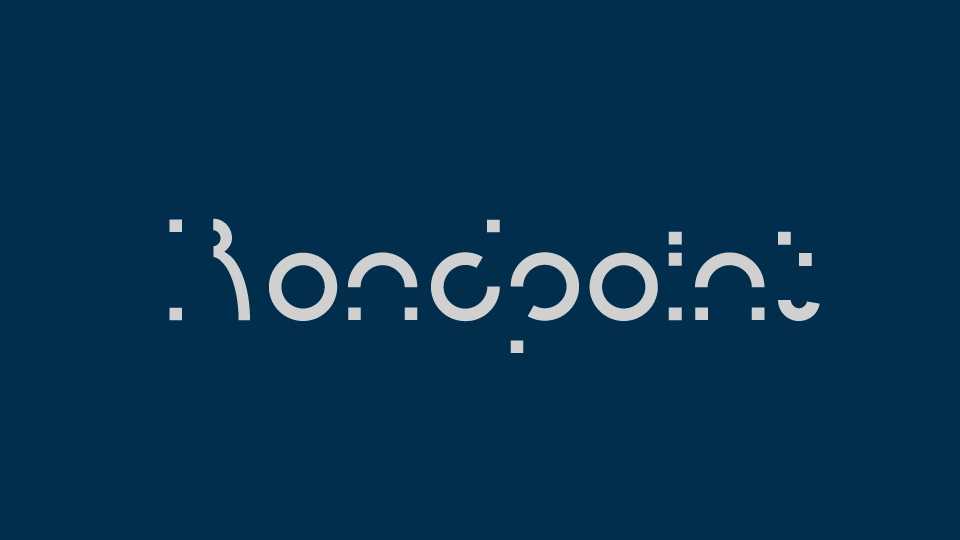
Download Rondpoint font, a disjoint geometric typeface. At the moment, the font does not have any special kerning features, and my punctuation marks need a lot to be desired.